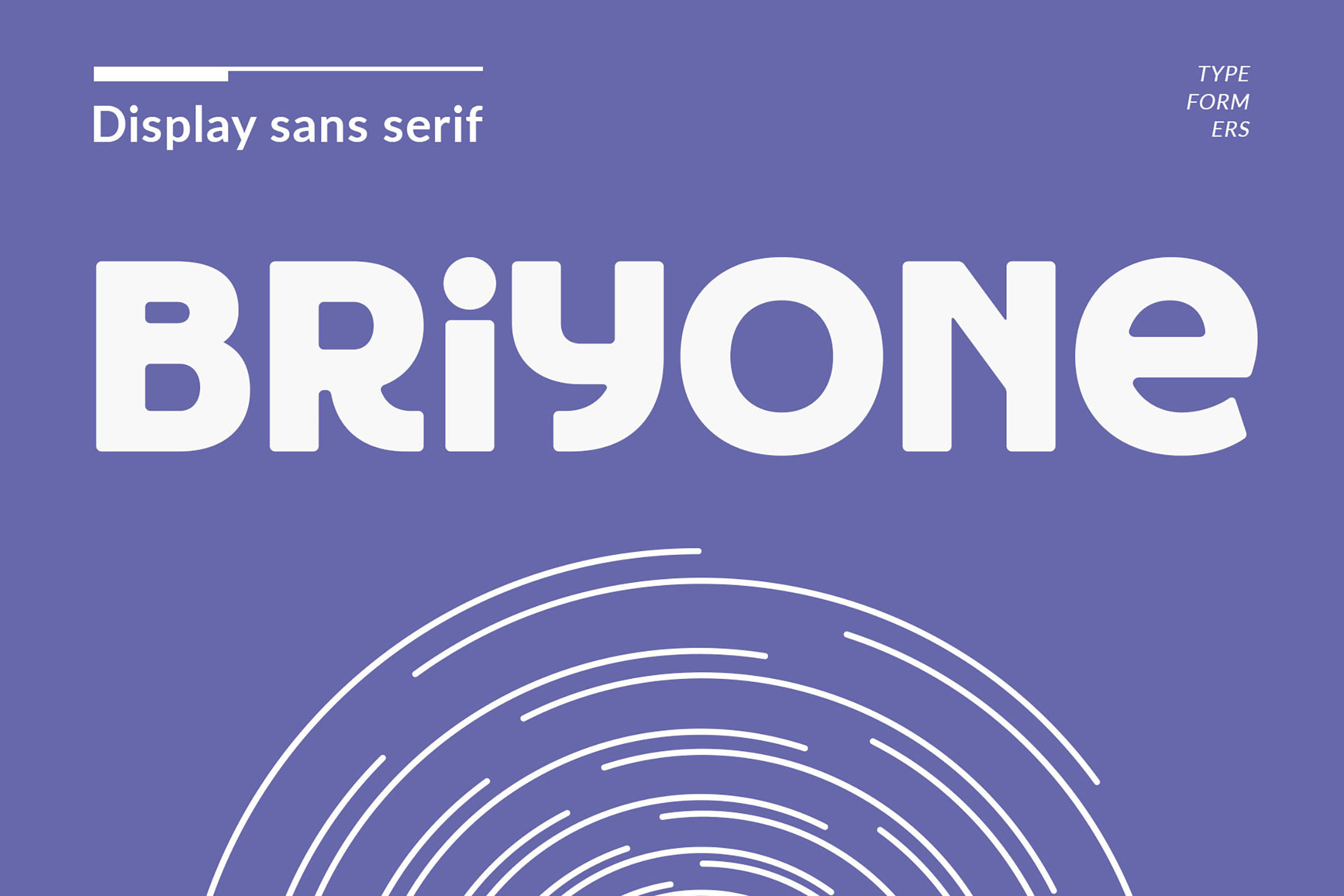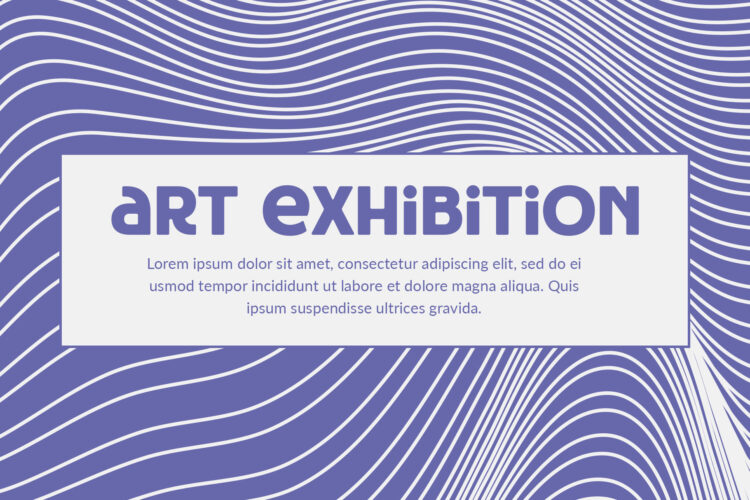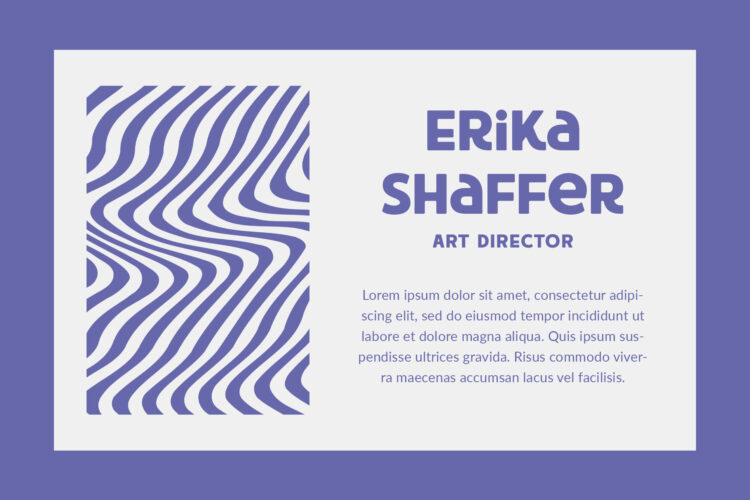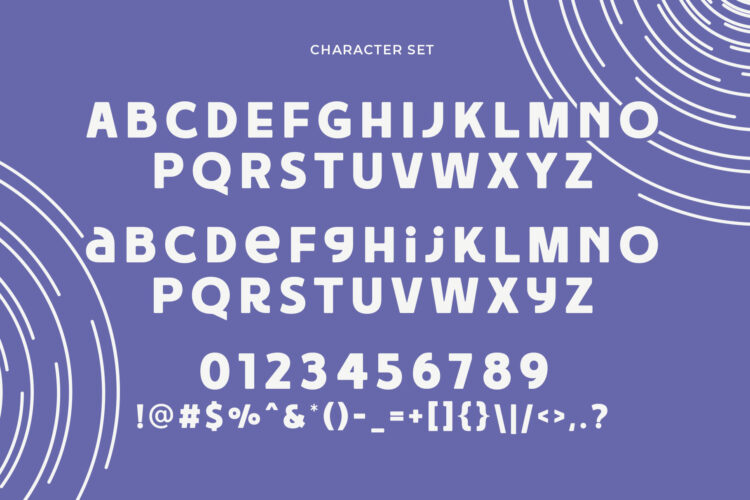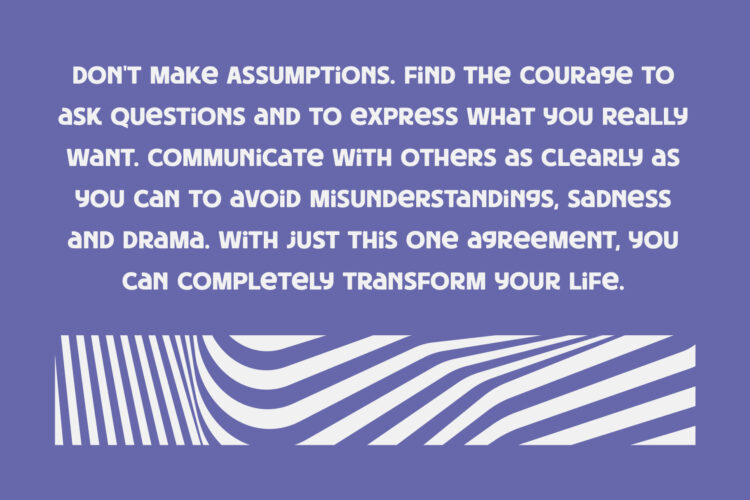
Introducing Briyone – Display Sans Serif.
Briyone is a modern and simple font, best used as a display for headings, logos, branding, magazines, product packaging and invitations.